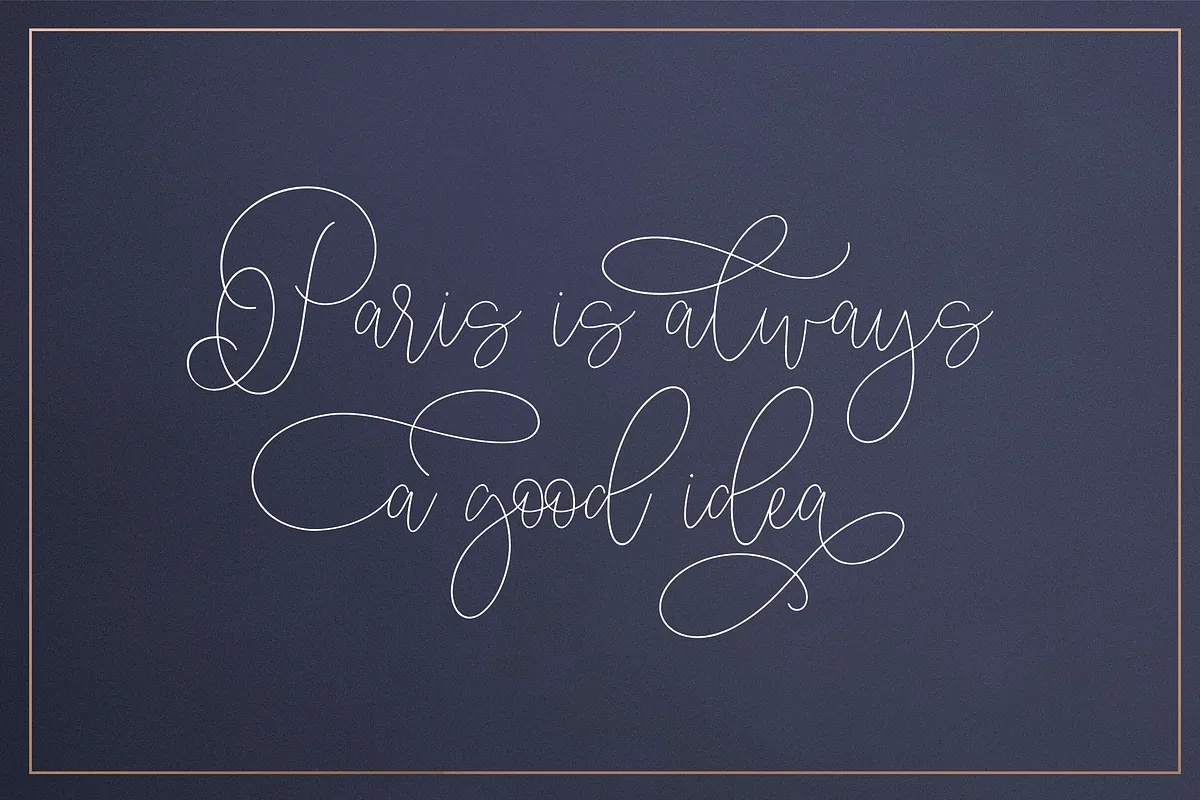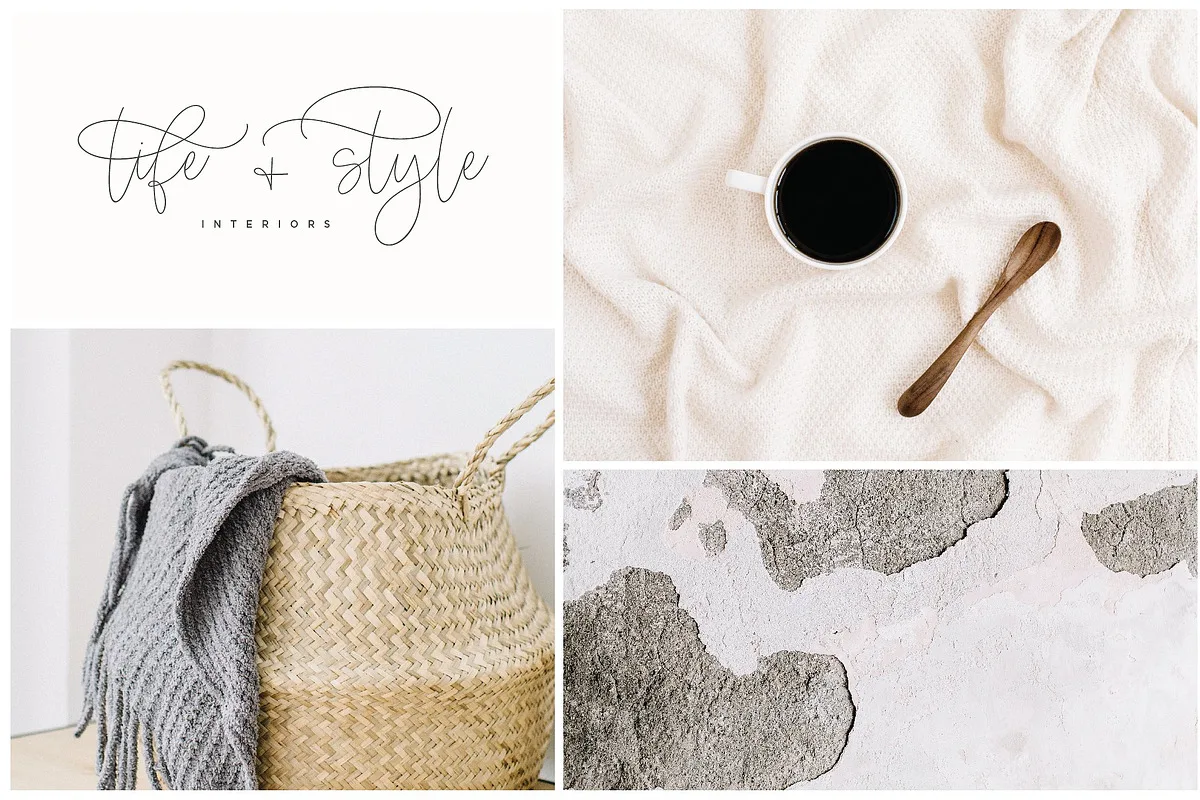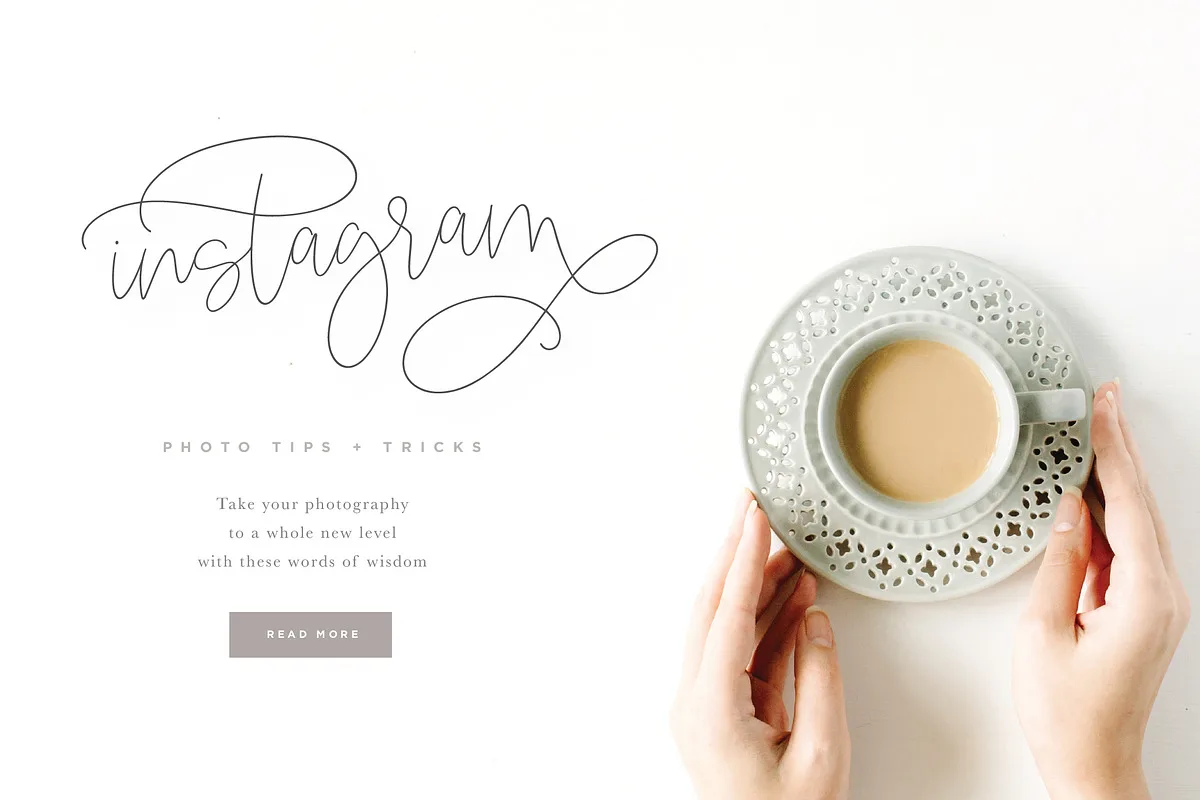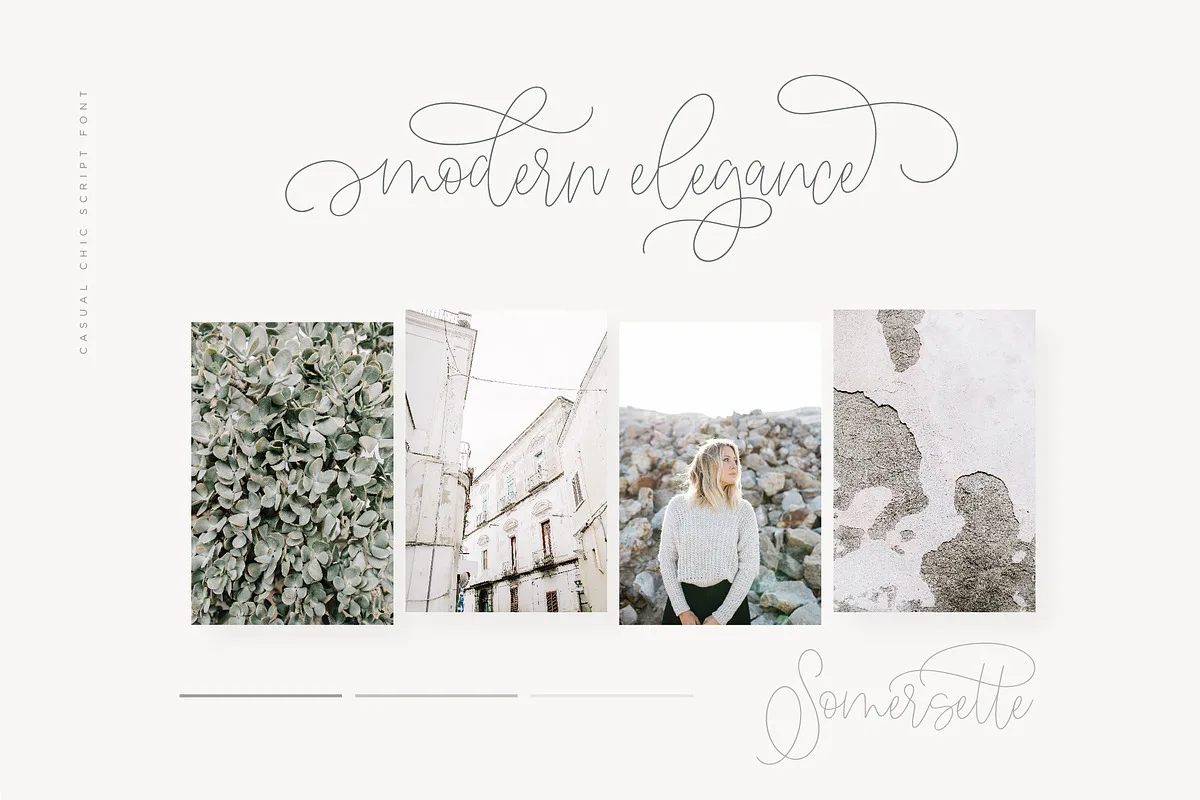
Somersette is a monoline script font! If you are needing a touch of casual chic calligraphy for your designs, this font was created for you!
It was built with OpenType features and includes beginning and ending swashes, alternate characters for both lowercase and uppercase letters, loads of different swash alternates for lowercase letters, numbers, punctuation, alternates, ligatures and it also supports other languages.
Somersette Script Font